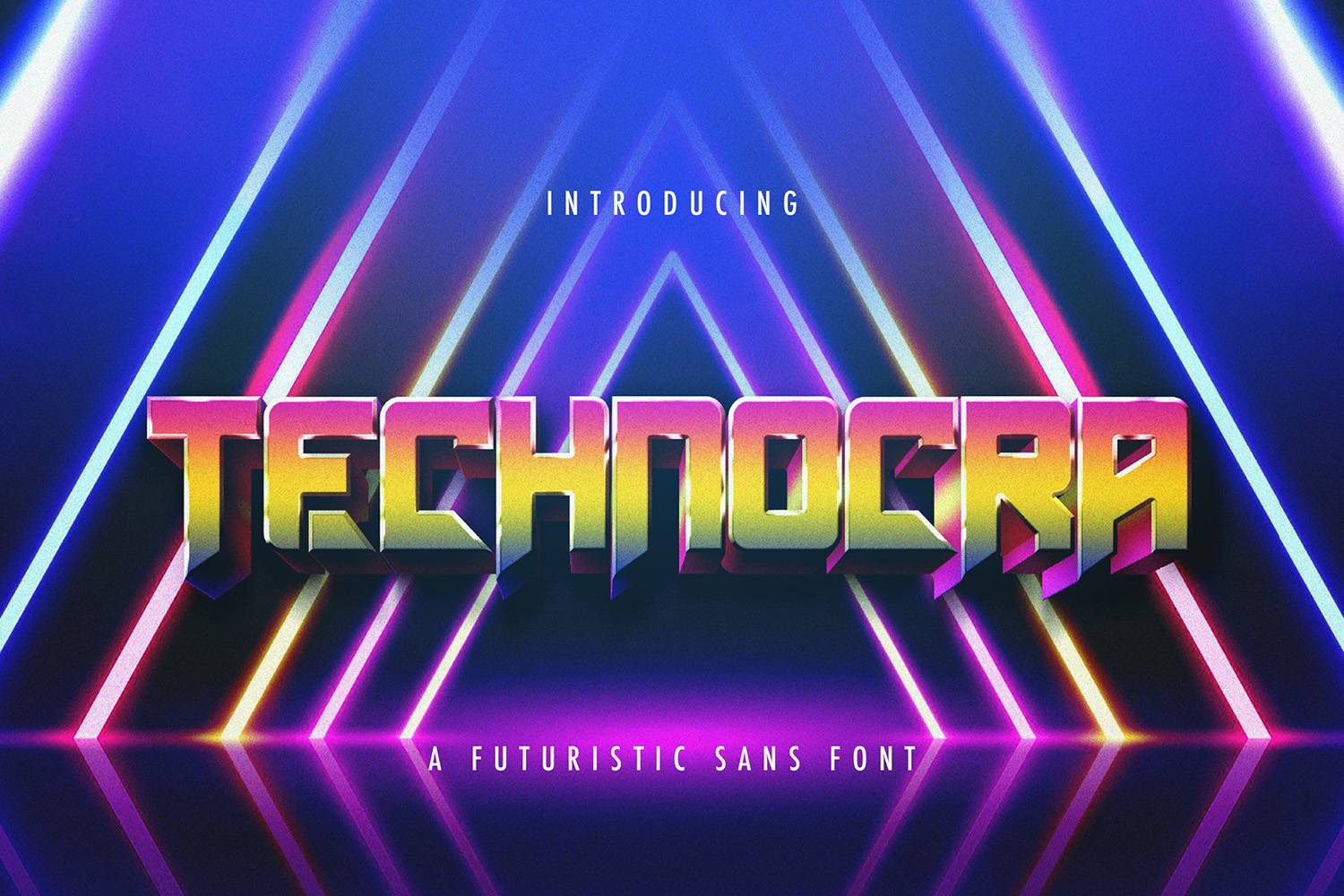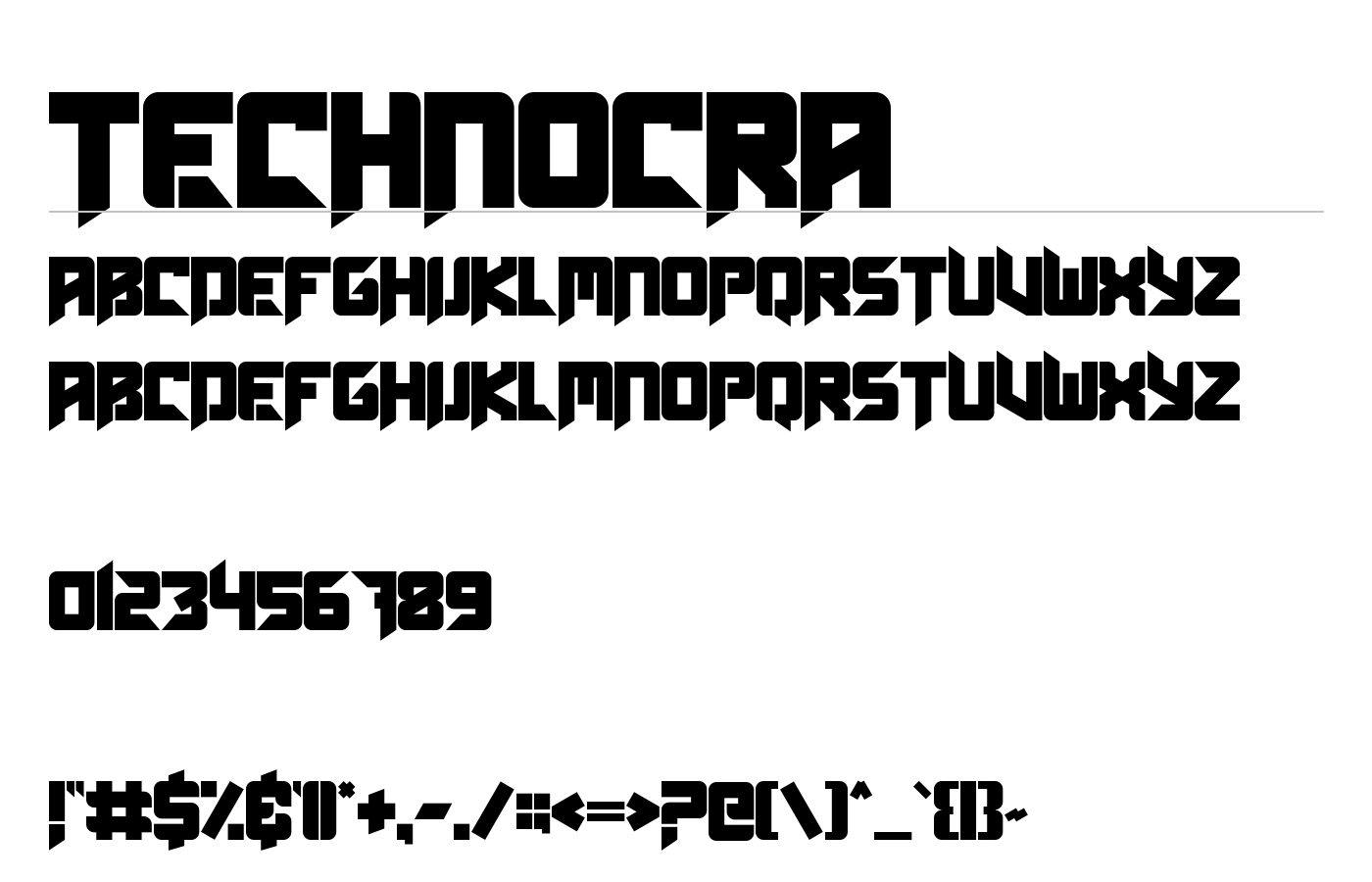
Technocra is a bold, geometric sans serif font with a futuristic and tech-inspired character. Its strong, blocky letterforms blend sharp angles with unique, stylized cuts that give it a dynamic, edgy vibe, ideal for logos, posters, and headlines where a modern, high-impact look is desired. This font works well for brands or projects aiming to communicate innovation, digital technology, or a cutting-edge aesthetic.
Technocra Font
About Technocra Font